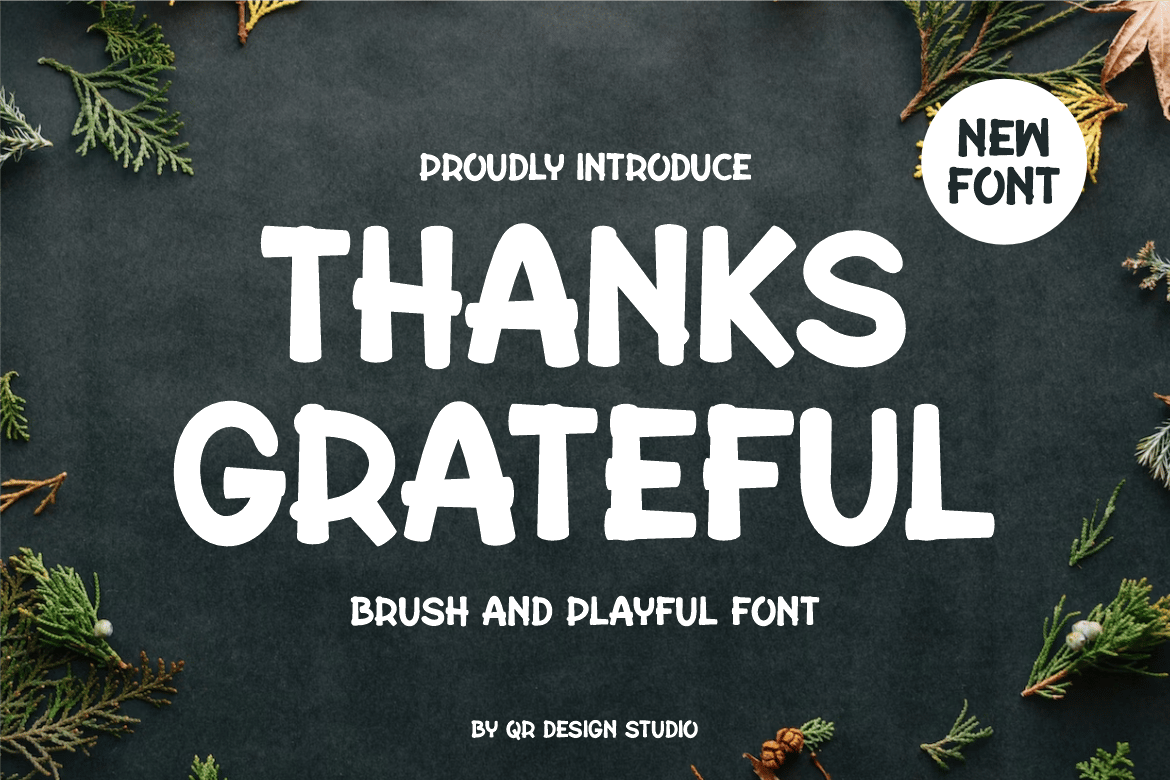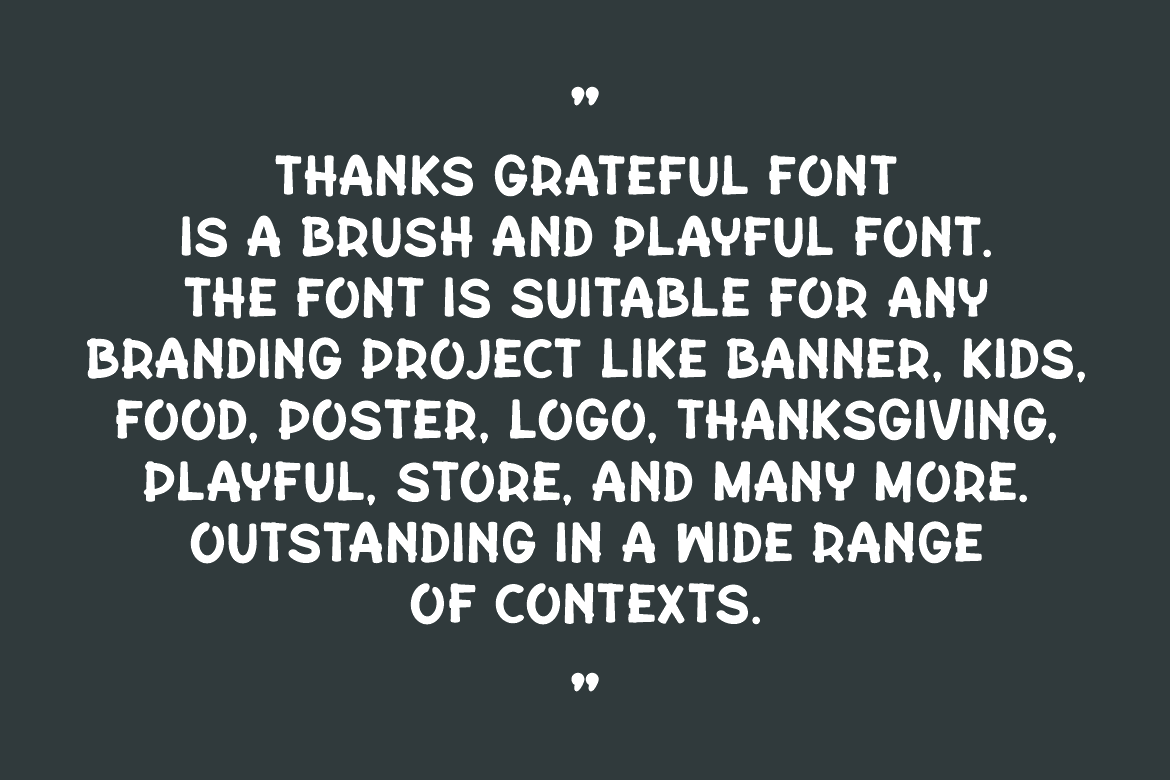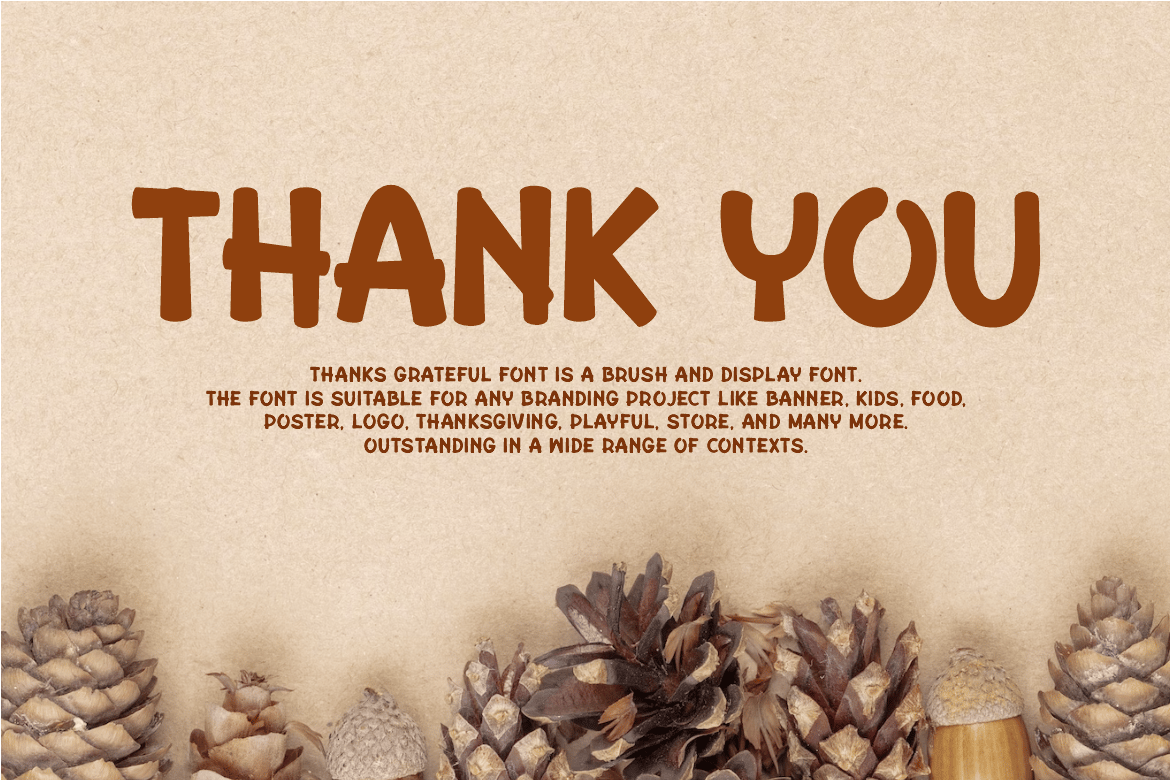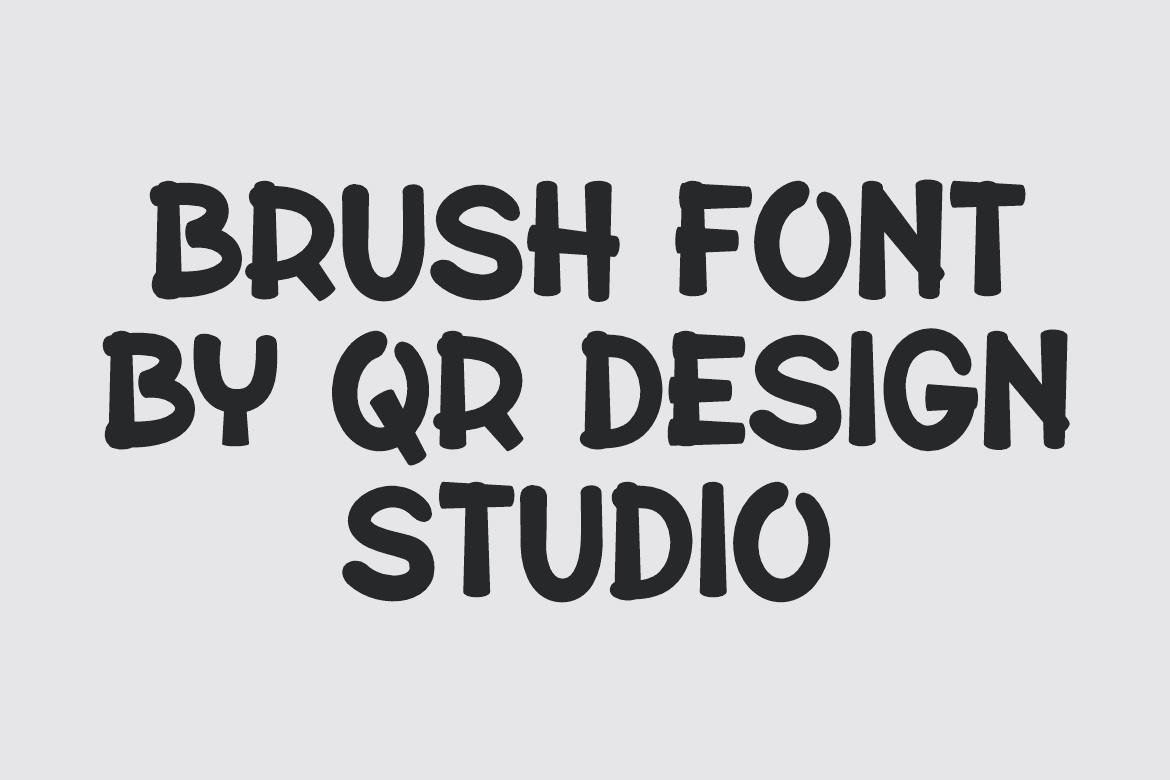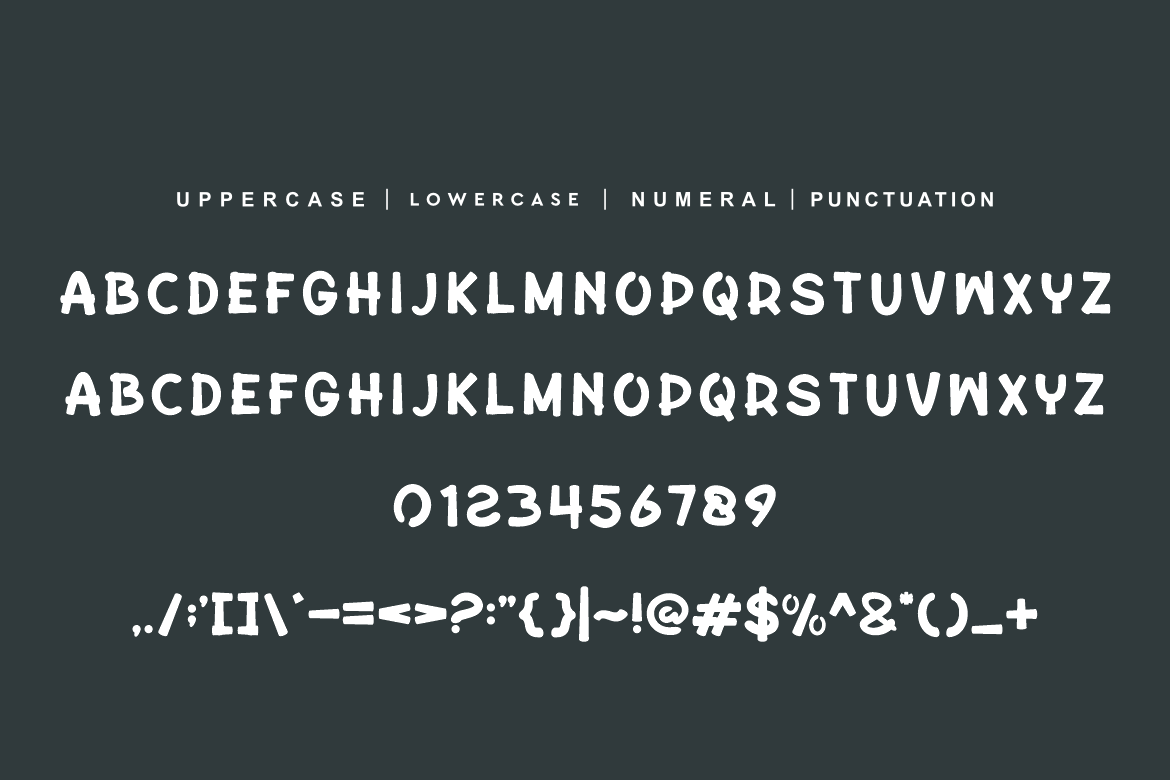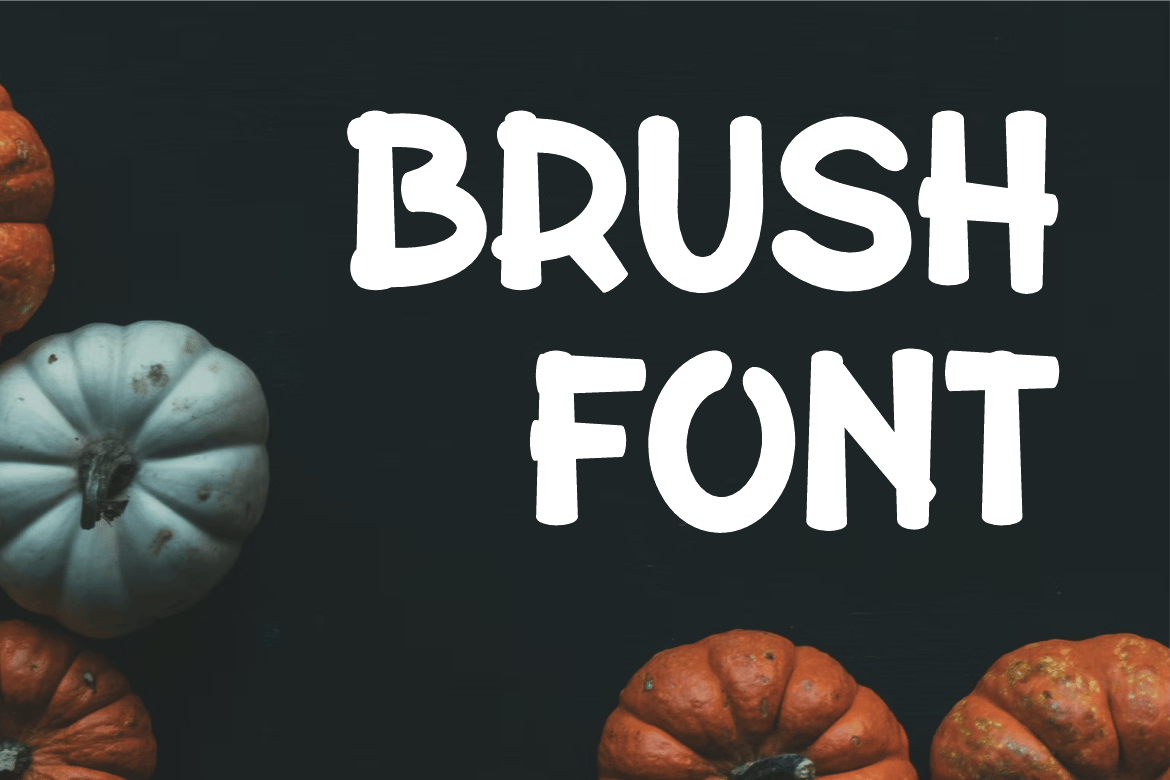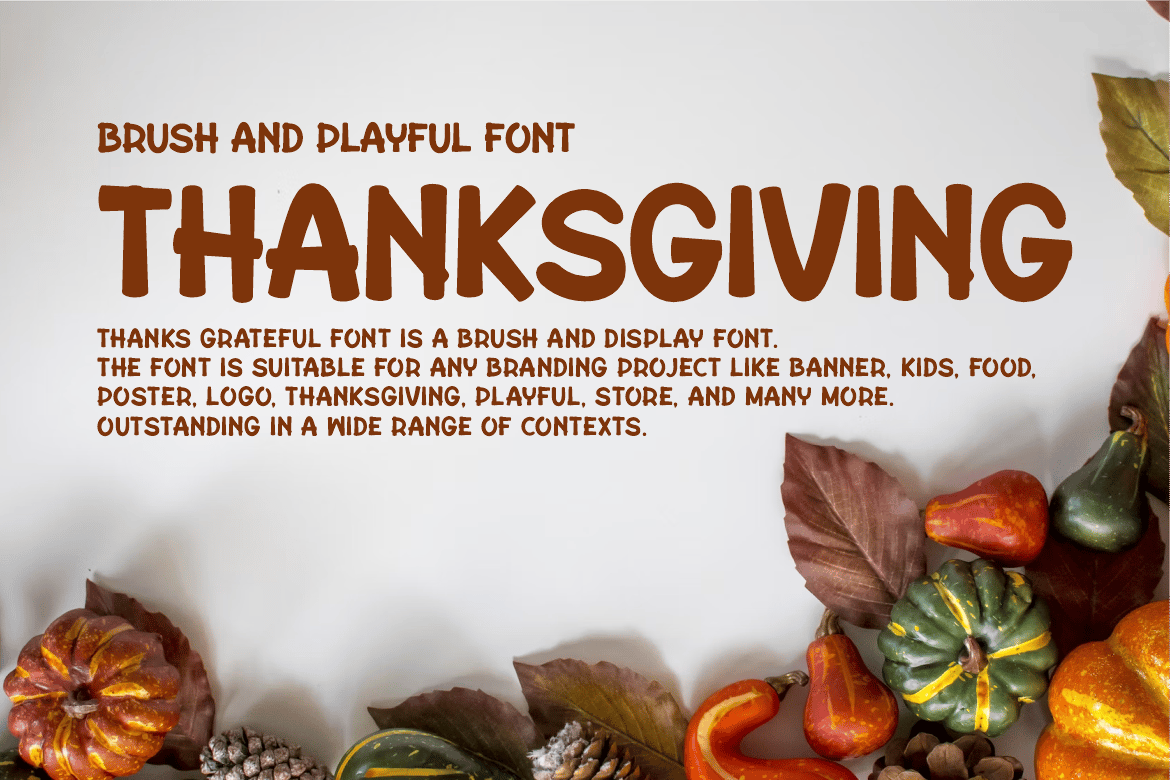
Thanks Grateful – Thanksgiving Font
Thanks Grateful – Thanksgiving Font is a bold and authentic display font.
The font is suitable for any branding project like poster, Thanksgiving, food, kids, logo, sport, and many more.
Outstanding in a wide range of contexts.